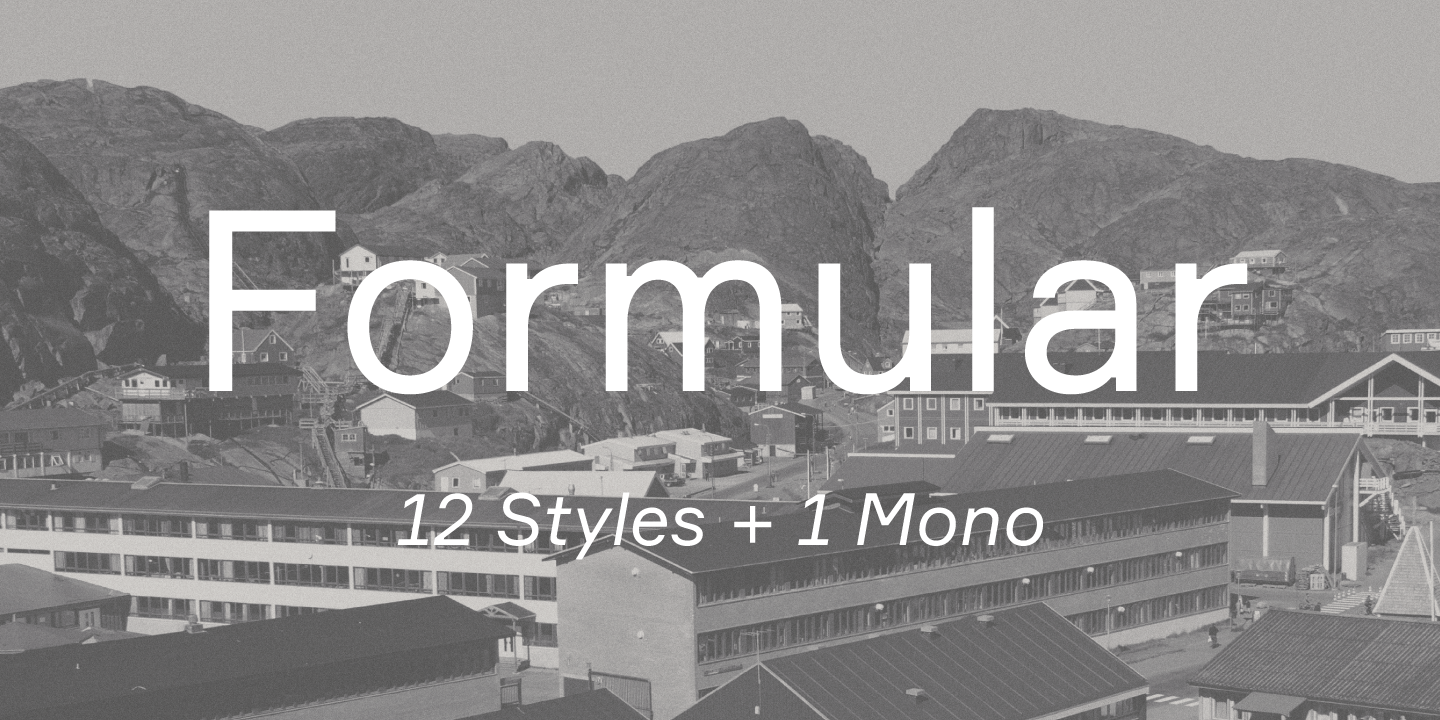
Formular Font is perfect for official documentation, government form design, legal document layouts, administrative materials, systematic data collection, bureaucratic communications, official application forms, regulatory compliance documents, institutional paperwork, and structured information applications. This systematic typeface creates authentic official atmosphere in both government print and digital administrative platforms.
What makes Formular Font exciting is its systematic design that perfectly balances official authority with functional clarity and bureaucratic efficiency for administrative excellence. The font features structured letterforms with formal proportions and systematic character details that ensure optimal form readability and official document functionality. Its authoritative design establishes an atmosphere of governmental reliability and administrative professionalism that resonates with official institutions seeking authentic bureaucratic presentation and regulatory compliance.
Formular Font family includes official variations: Light, Regular, Medium, Bold, and Official versions, each with systematic alternates and administrative character sets. Each variant maintains the font's formal personality while providing designers with structured options for creating official typography systems and administrative communication materials.
This exceptional official typeface brings authentic governmental credibility to projects requiring administrative presentation. Whether you're designing official forms, government communications, or regulatory documentation, Formular Font Free Download delivers outstanding authority and administrative sophistication. The font's systematic proportions and official details ensure optimal functionality across various governmental applications.
Government agencies and administrative organizations recognize how Formular Font perfectly embodies the principles of official documentation and bureaucratic efficiency. Its systematic foundation combined with governmental authority makes it essential for official and administrative design projects. Download today and formalize your designs with this exceptionally structured governmental typography.